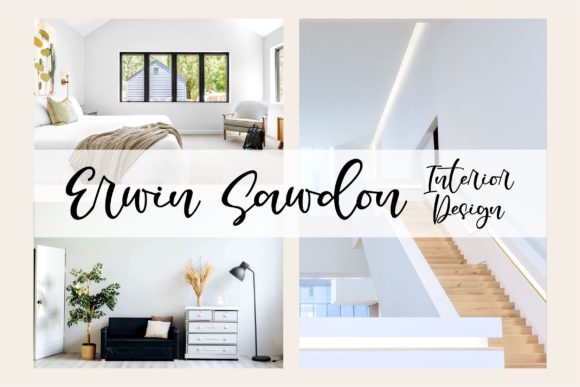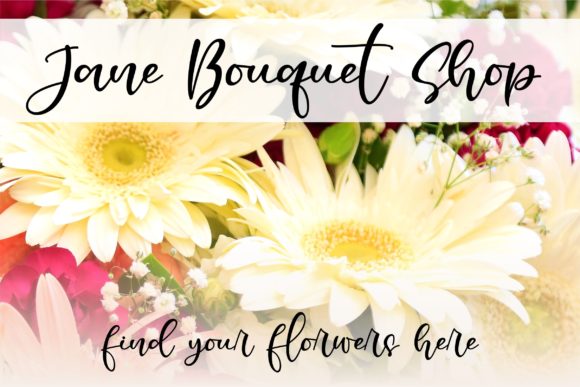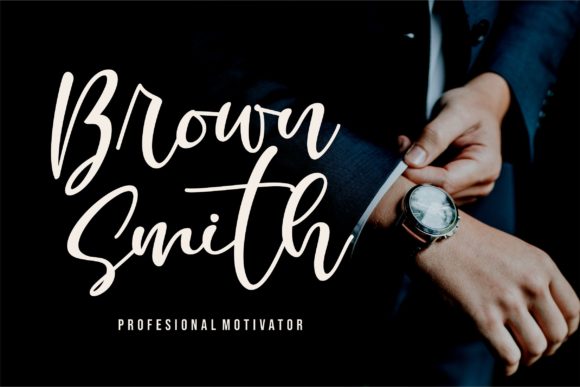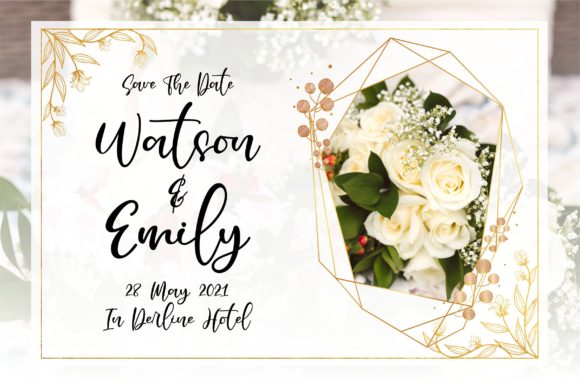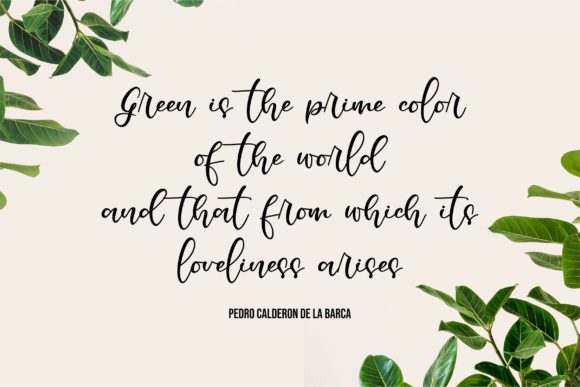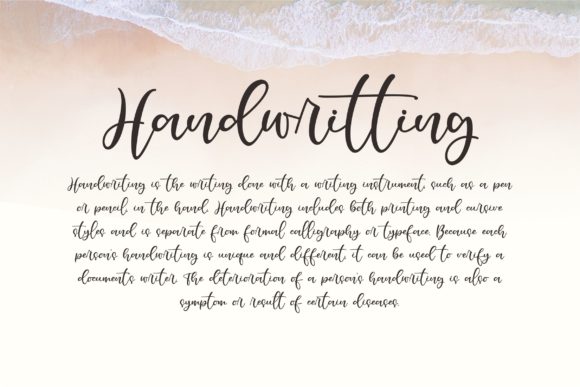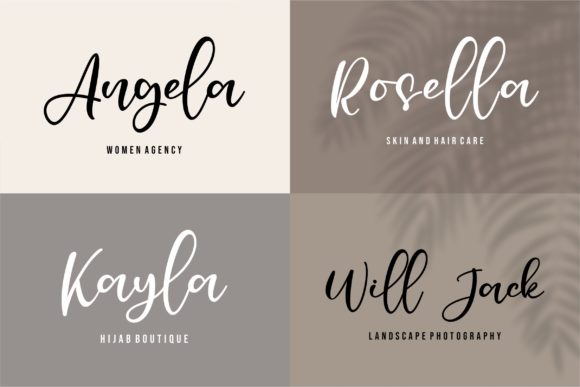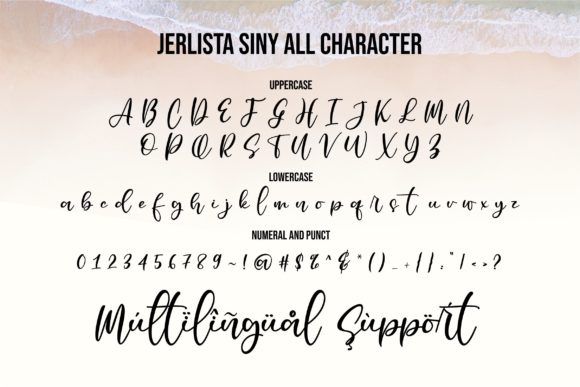
Jerlista Siny Font
Jerlista Siny is a cute script font. It features a modern and elegant style that will take your designs to the next level. Whether you’re looking for fonts for Instagram or calligraphy scripts for DIY projects, Jerlista Siny will turn any creative idea into a true piece of art!